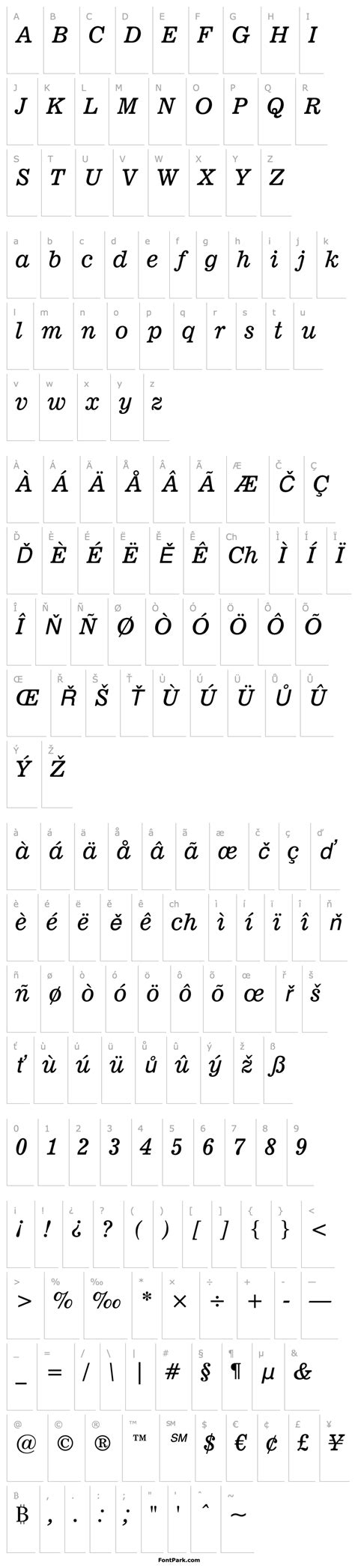
Hey guys, looking to spice up your designs with a killer italic font? You’re in luck! Today, we’re diving deep into the News 701 italic font free download scene. This font is seriously cool and can add a touch of sophistication or a dash of flair to pretty much any project you’re working on. Whether you’re a seasoned graphic designer, a blogger looking to make your content pop, or just someone who appreciates a good typeface, understanding where to find and how to use cool fonts like News 701 is super important. We’re going to break down why this font is a gem, where you can snag it for free, and some awesome ways to incorporate it into your work. So, buckle up, because we’re about to level up your font game!
Why News 701 Italic Rocks
So, what’s the big deal about the News 701 italic font free download ? Well, this typeface, in its italic form, brings a unique blend of elegance and dynamism to the table. Think about it – italics are inherently more casual and engaging than their upright counterparts. They draw the eye, create a sense of movement, and can really make text stand out. The News 701 italic specifically offers a clean, modern aesthetic with just the right amount of personality. It’s not overly decorative, meaning it remains highly readable, which is crucial for everything from website copy to printed materials. Its versatility is one of its biggest strengths. You can use it for headlines to grab attention, for body text to add a subtle stylistic touch, or even for quotes to give them a special emphasis. The carefully crafted curves and subtle slants in the News 701 italic make it feel both professional and approachable. It’s the kind of font that whispers sophistication rather than shouting it, making it perfect for brands that want to convey a sense of trustworthiness and quality. Plus, when you can find it as a free download , it’s a no-brainer for anyone looking to expand their font library without breaking the bank. It bridges the gap between classic serif fonts and more contemporary sans-serifs, offering a balanced and timeless feel that won’t go out of style anytime soon. It’s that perfect middle ground that often gets overlooked but is so incredibly useful.
Unleashing the Power of News 701 Italic in Your Projects
Now that you’ve got your hands on the News 701 italic font free download , how do you make it shine in your designs? The possibilities are endless, but let’s explore some killer applications. First off, headlines and titles are a natural fit. The italic slant immediately adds a sense of urgency and excitement, making it perfect for news articles (fitting, right?), blog post titles, or promotional banners. Imagine a website with a bold, sans-serif headline and then a News 701 italic sub-headline – it creates instant visual hierarchy and interest. For body text , using News 701 italic sparingly can be incredibly effective. Think about quoting someone important or highlighting a key takeaway in an article. A few lines in italics can break up monotony and draw the reader’s attention to crucial information. It’s like giving those words a little spotlight. It’s also fantastic for call-to-action buttons or special offers . The dynamic nature of the italic can encourage clicks and create a sense of immediate action. Need to emphasize a word or phrase in a sentence? News 701 italic is your go-to. It’s more subtle than bolding but carries a distinct stylistic weight. For branding , this font can be used to create a sophisticated logo mark or a unique tagline. Its clean lines and professional feel make it suitable for a wide range of industries, from tech startups to boutique agencies. If you’re designing invitations or event materials , the News 701 italic can add an elegant and personal touch. It feels less formal than a traditional script but still conveys a sense of occasion. In presentations , use it for slide titles or to emphasize key points within your bullet lists. It helps guide the audience’s eyes and makes your information more digestible. Even for social media graphics , a well-placed italic phrase can make your posts stand out in a crowded feed. The trick is to balance it with other fonts . Don’t go overboard! Pair it with a strong, readable sans-serif or a classic serif for contrast. This creates a harmonious and professional look. Experiment with different sizes and weights to see how it interacts with other elements on your page. Remember, the goal is to enhance your message, not to overwhelm it. So, go forth and create something amazing with your free download of News 701 italic!
Tips for Using Italic Fonts Effectively
Using italics, including your newfound News 701 italic font free download , is an art form, guys. It’s not just about hitting the italic button; it’s about strategic application. The first and foremost rule is to use italics sparingly . Overusing them can make your text look cluttered and difficult to read, defeating the whole purpose. Think of italics as a spice – a little goes a long way to enhance flavor. Another crucial tip is to understand the purpose of italics . Traditionally, they’re used for foreign words, titles of books, magazines, and newspapers, and for emphasis. When you use News 701 italic for emphasis, ensure it’s for words or phrases that genuinely need that extra nudge. Don’t italicize every other word; that just leads to reader fatigue. Consider the contrast with your primary font . If your main text is in a bold, heavy font, a lighter italic might get lost. Conversely, if your body text is light, a strong italic can create a nice visual break. The News 701 italic strikes a good balance, but always test it in context. Readability is key . While News 701 italic is generally readable, extremely long passages in italics can be tiring for the eyes. It’s best reserved for shorter bursts of text – headlines, subheadings, quotes, or single words/phrases. Consistency is also vital . Decide how and where you’re going to use the italic style throughout your document or website and stick to it. This creates a professional and cohesive look. For instance, if you decide to italicize all book titles, do that consistently. If you’re using it for emphasis, be selective and consistent in your selection criteria. Think about the psychology of italics . They often convey a sense of importance, elegance, or sometimes even a whispery, confidential tone. Use this to your advantage to evoke the right emotion in your readers. Finally, always preview your work . Before you hit publish or print, take a step back and look at your design with fresh eyes. Does the italicized text stand out appropriately? Is it easy to read? Does it contribute to the overall aesthetic and message? Tools like a News 701 italic font free download are fantastic resources, but their effectiveness hinges on how well you wield them. So, practice, experiment, and always prioritize clarity and impact in your design choices. Remember, the goal is communication, and typography is a powerful tool to achieve that.
Conclusion: Elevate Your Designs with News 701 Italic
So there you have it, folks! We’ve explored the fantastic qualities of the News 701 italic font free download , discovered where you can snag this gem, and brainstormed some awesome ways to integrate it into your creative projects. This font is a powerful tool in your design arsenal, offering a unique blend of style and readability that can truly elevate your work. Whether you’re designing a website, crafting a social media post, laying out a brochure, or just want to add a little extra pizzazz to your documents, News 701 italic provides that perfect touch of sophistication and dynamism. Remember the key takeaways: use it strategically , mind your licensing , and always prioritize readability and consistency . Don’t let this amazing free resource go to waste! Go ahead, download it, experiment with it, and watch your designs transform. Happy designing, everyone!